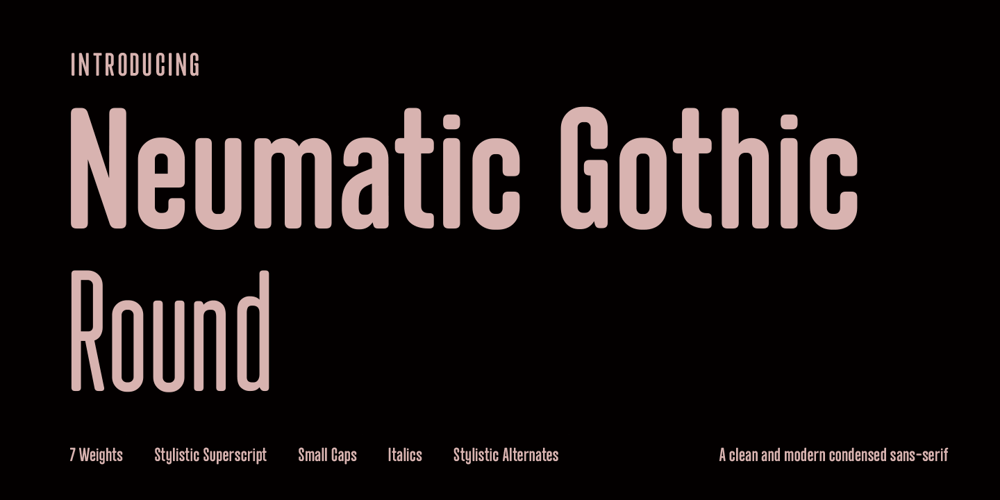
Neumatic Gothic Round Font Family was designed by Andrew Footit and published by Arkitype. Neumatic Gothic Round contains 14 styles and family package options. Neumatic Gothic Round is a condensed sans-serif family. It has a tall Cap Height as well as x-height to balance it. Neumatic Gothic Round is versatile in use as a Headline font or as a text font.Neumatic Gothic Round has loads of options to play around with. Included in the glyph set are small caps, a stylistic uppercase superscript, stylistic alternates and circled numbers to name some. The typeface was designed with the graphic designer in mind to make beautiful typographic layouts with ease by using all the options you have in Neumatic Gothic Round.